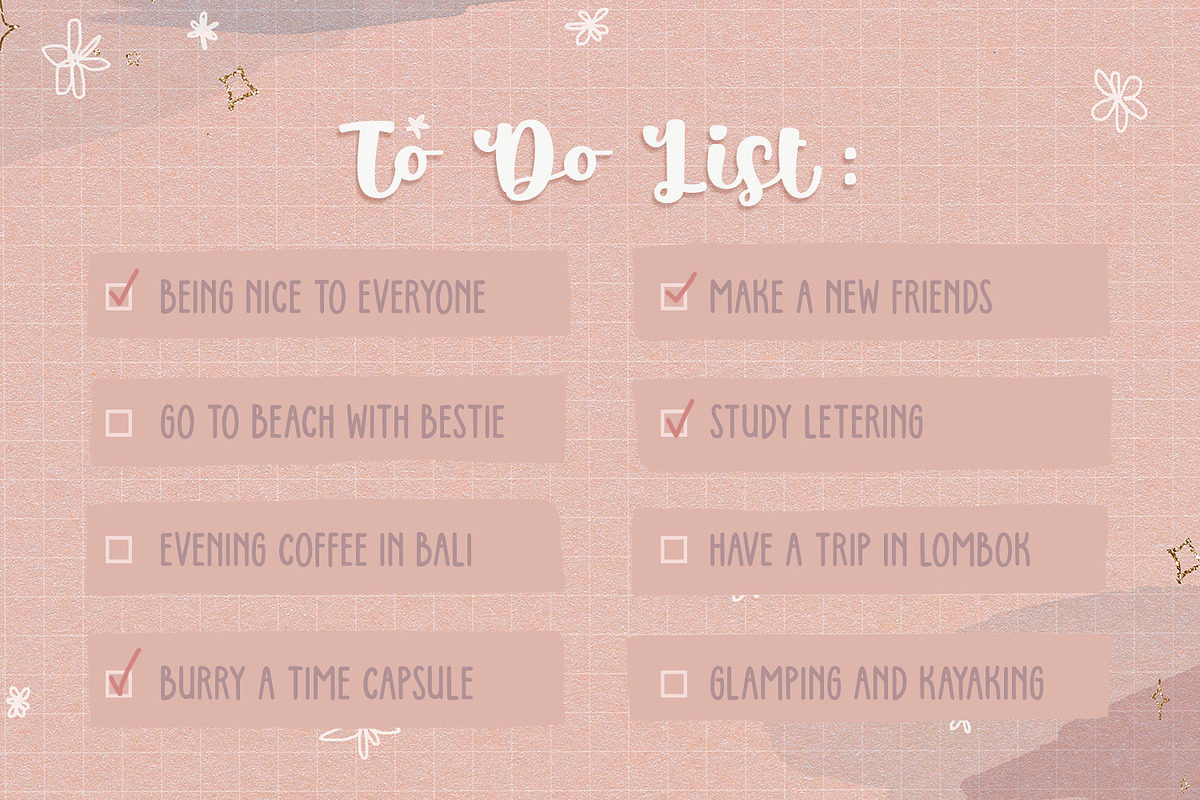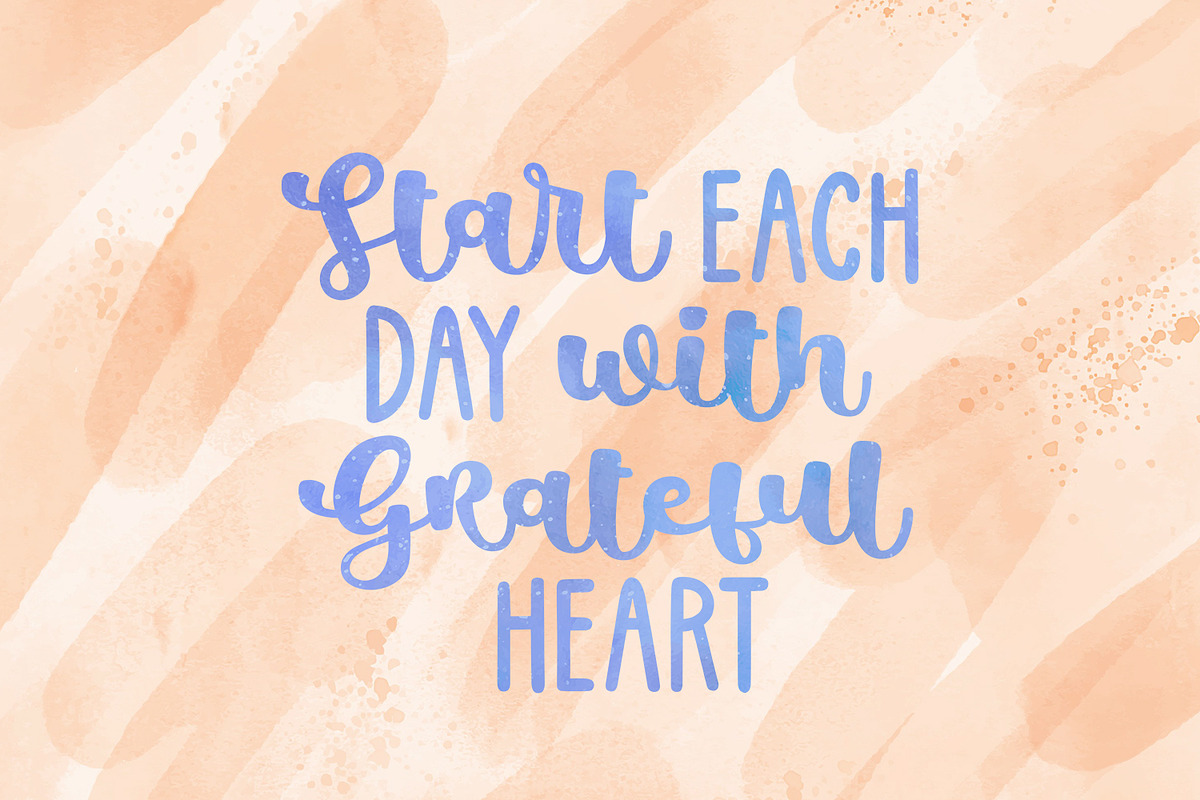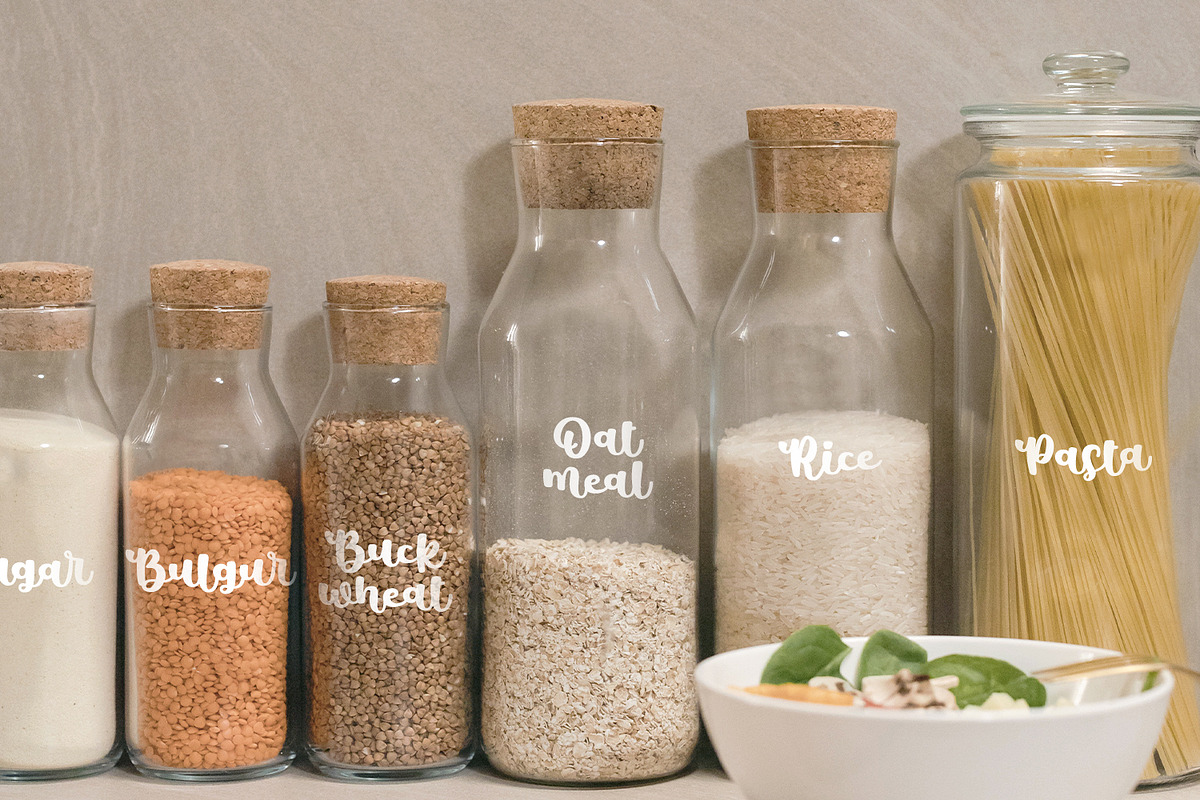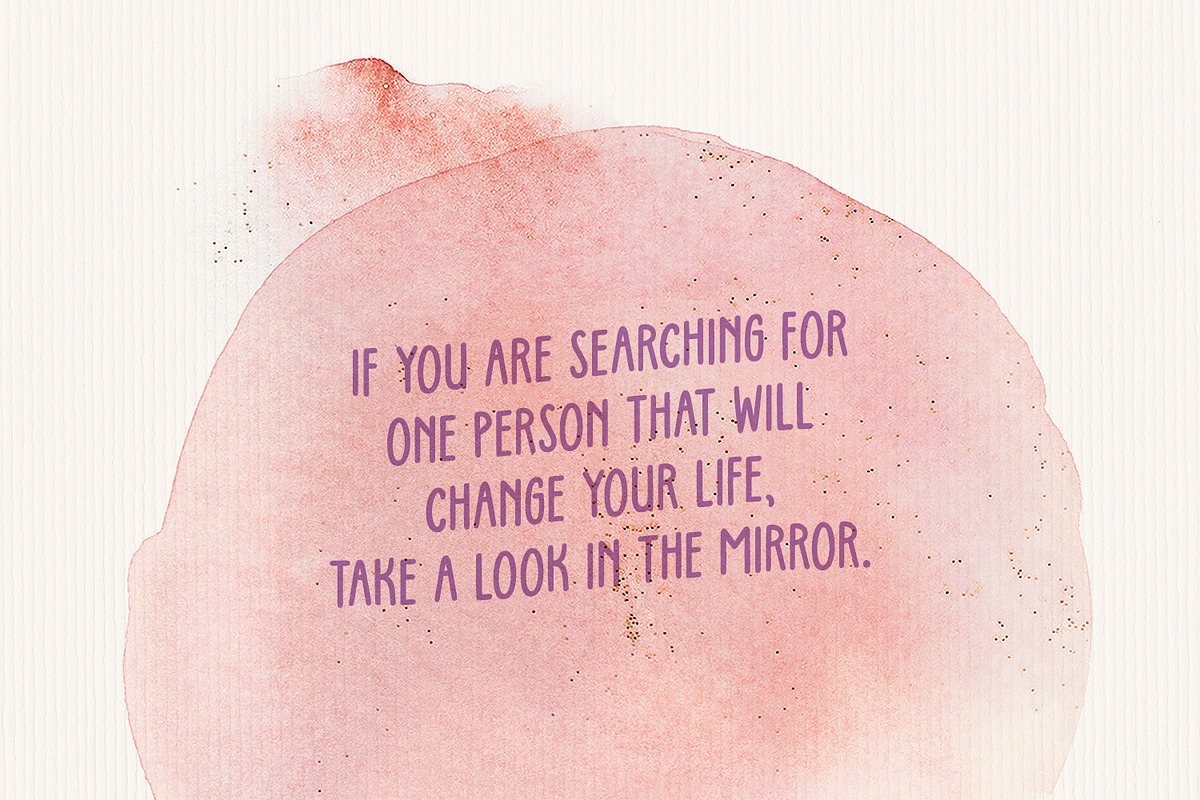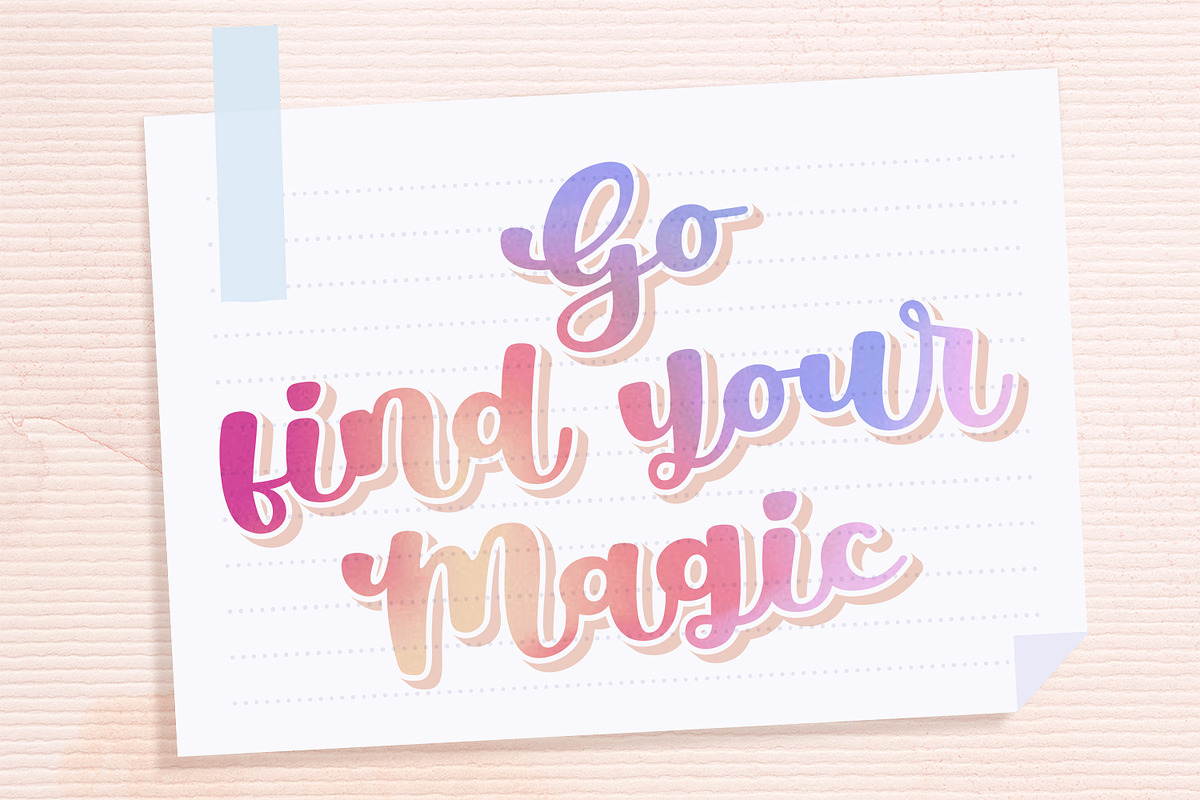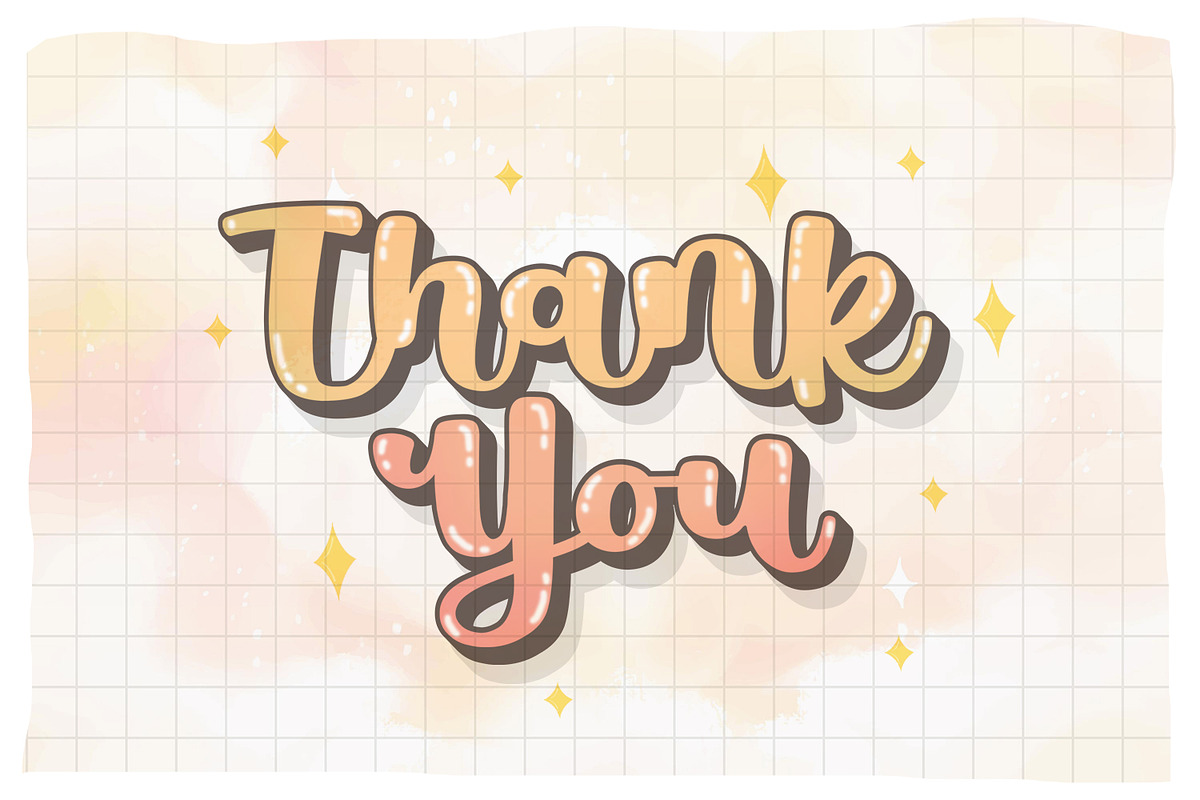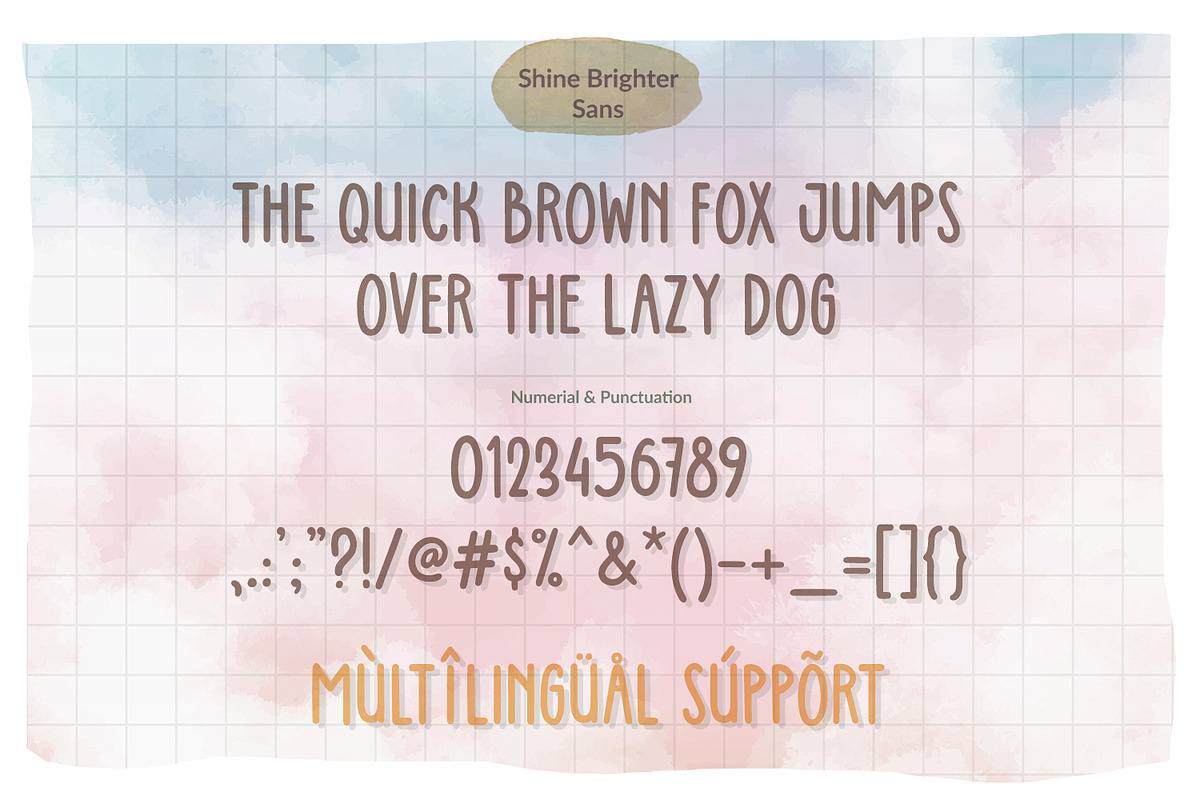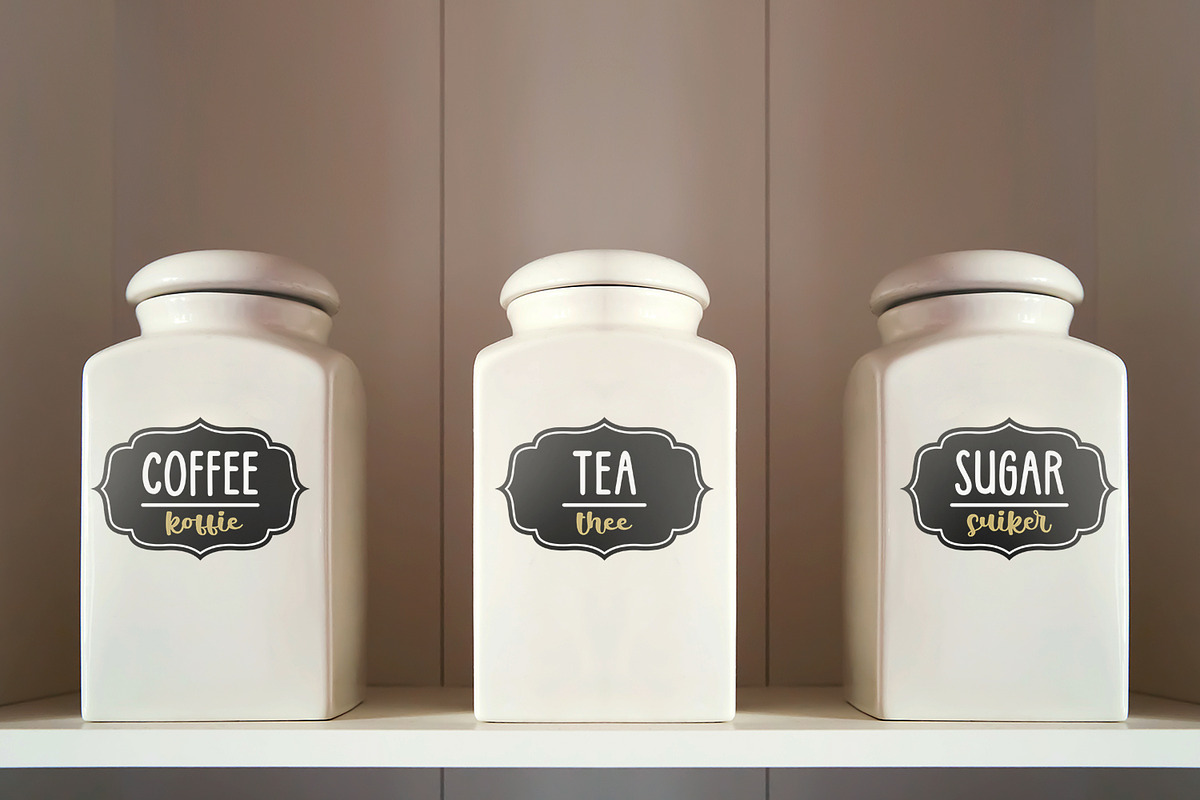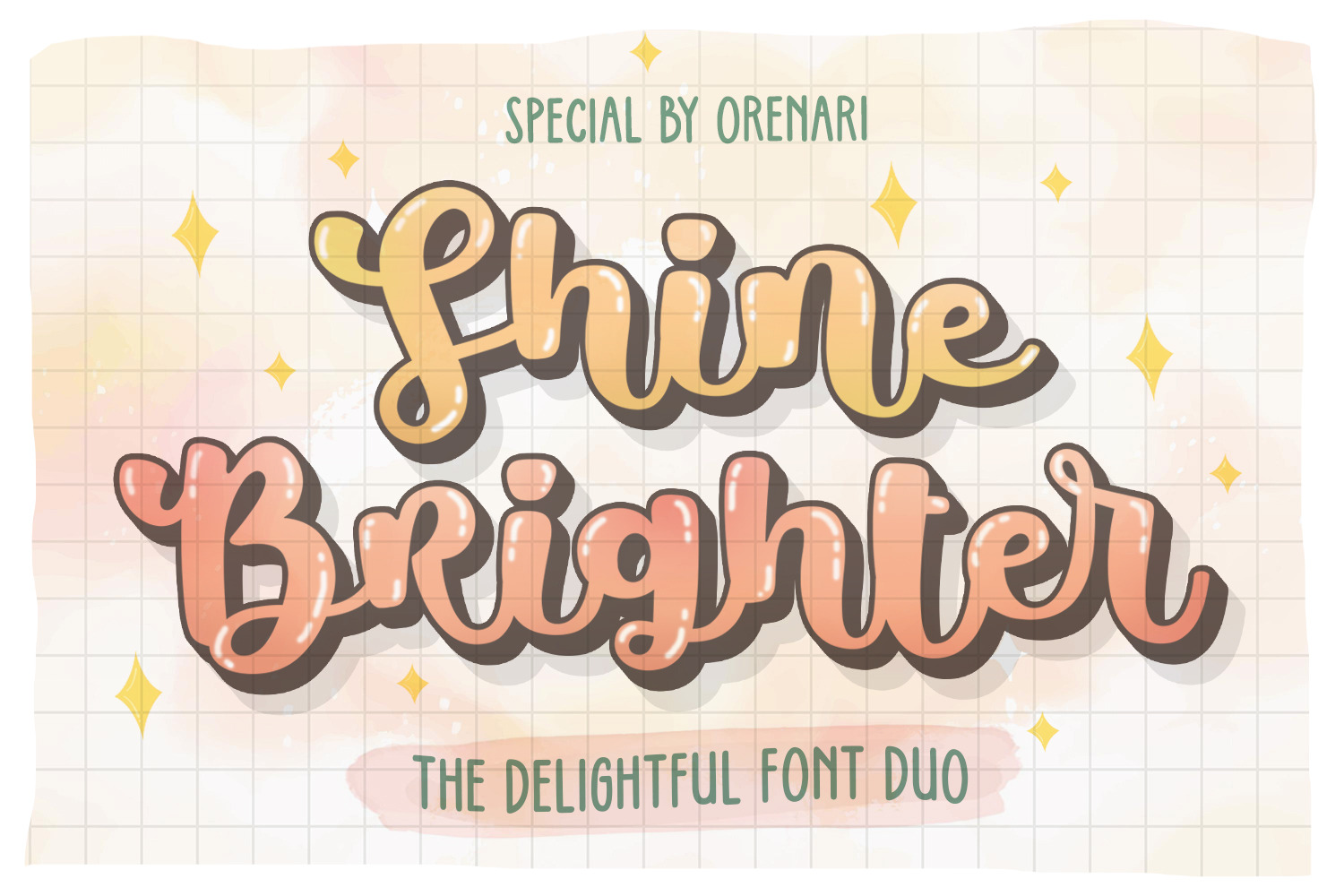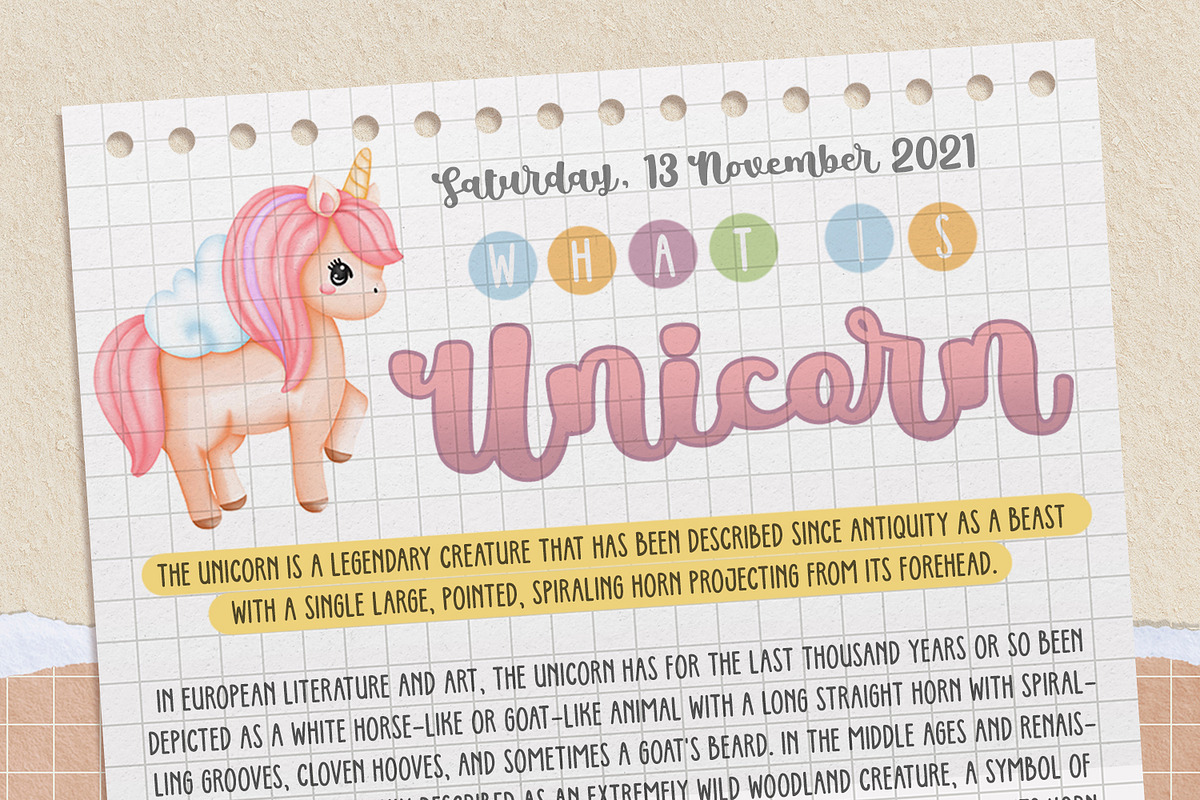
Shine Brighter Font Duo
It's a special day to release a good font. Here is Shine Brighter font, a delightful font duo. The inspiration of Shine Brighter is lettering art and cute study gram. This font has script and sans with different style, so you can combine this font as creative as you want. Shine Brighter is really perfect for DIY projects, crafts, social media designs, and many more. As its name, with this font, I hope your projects will shine brighter.